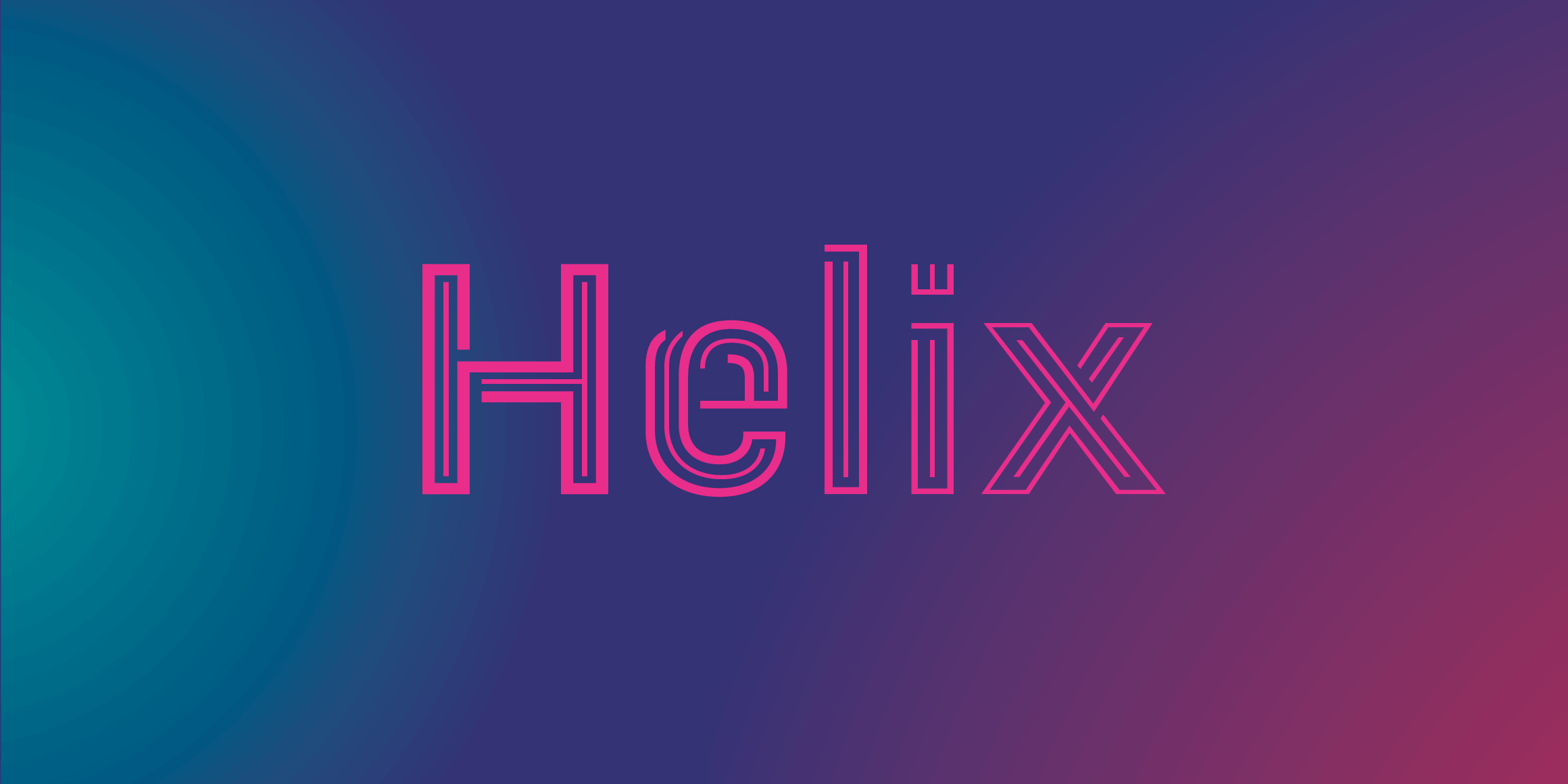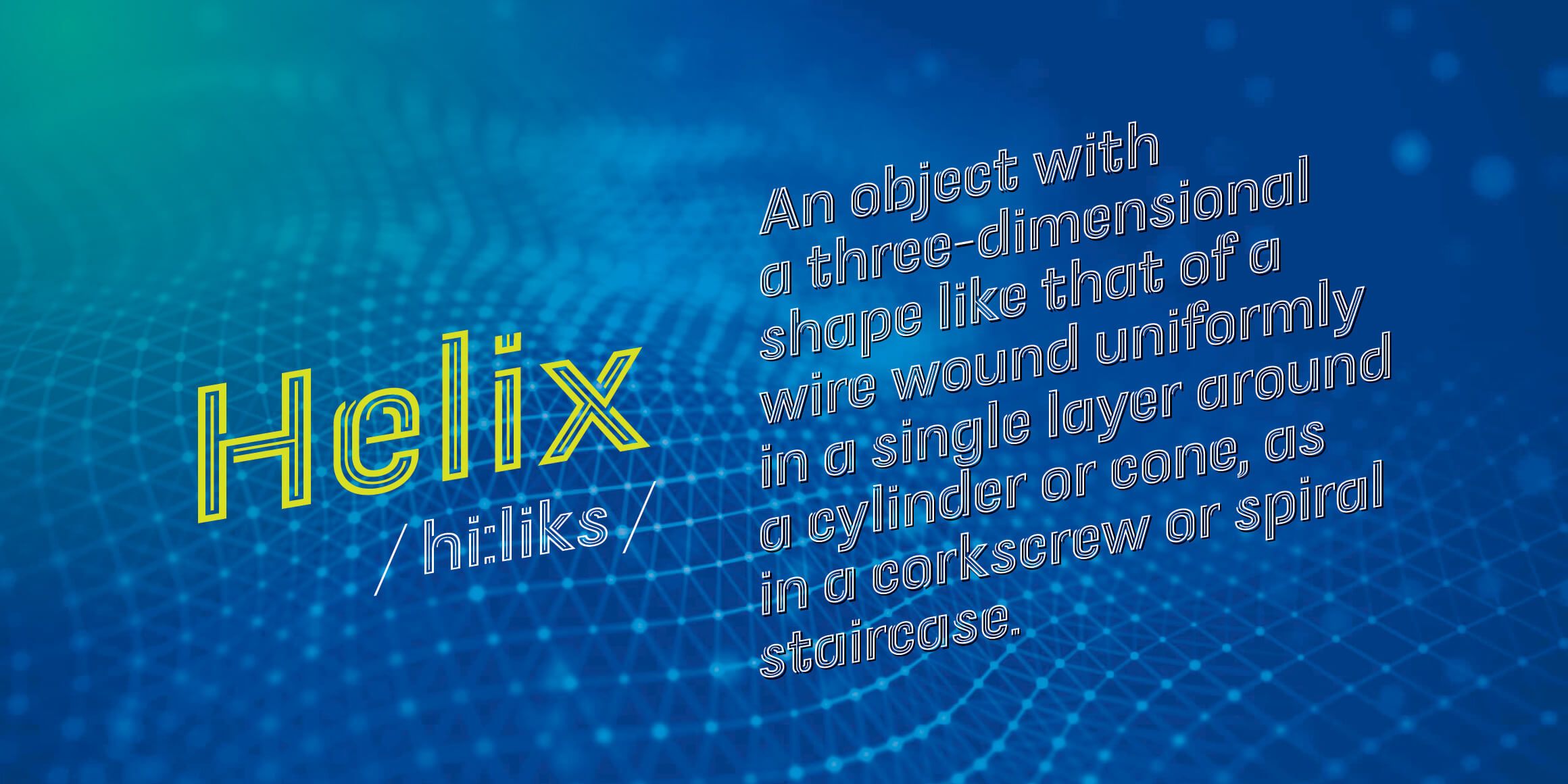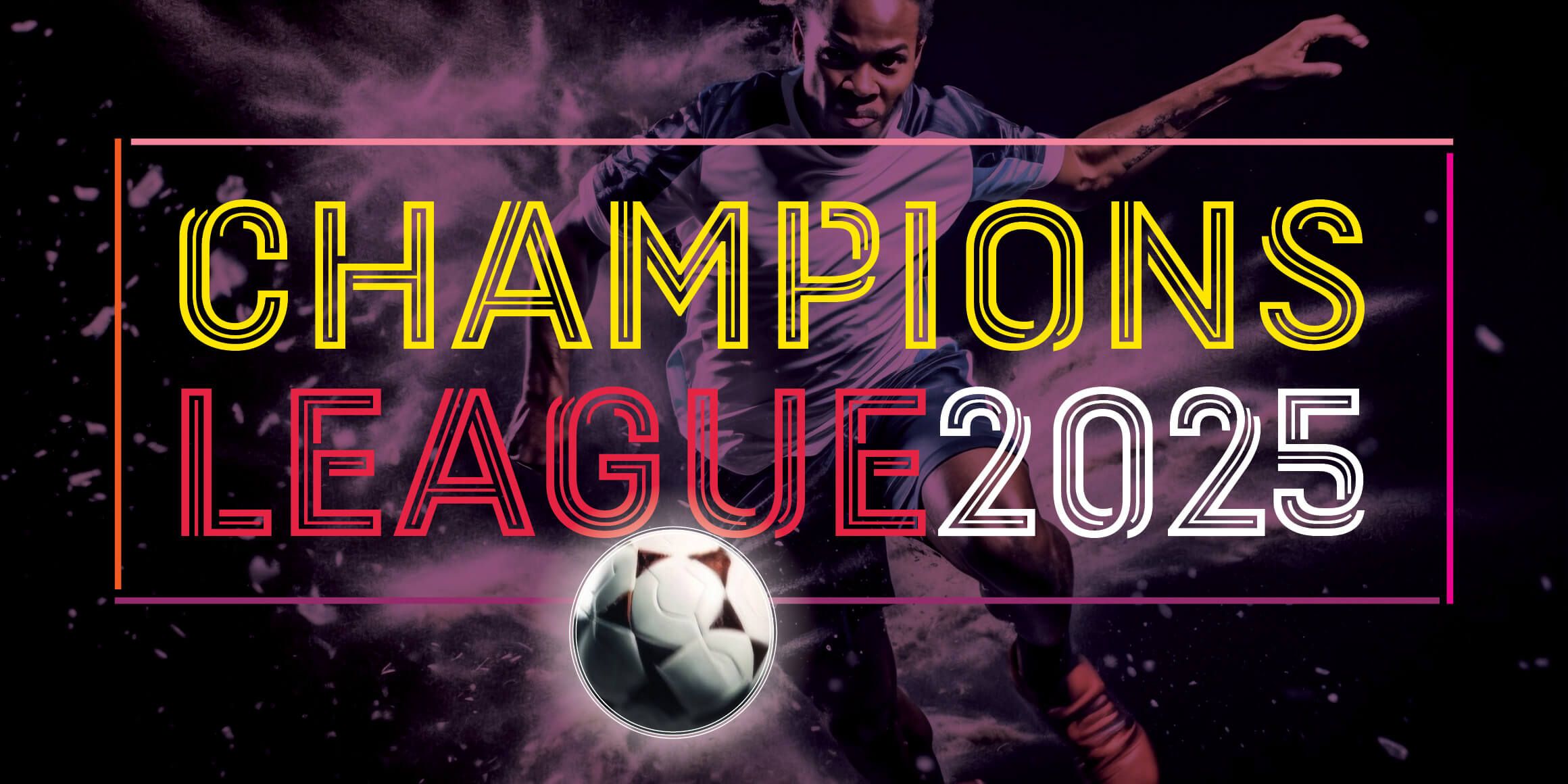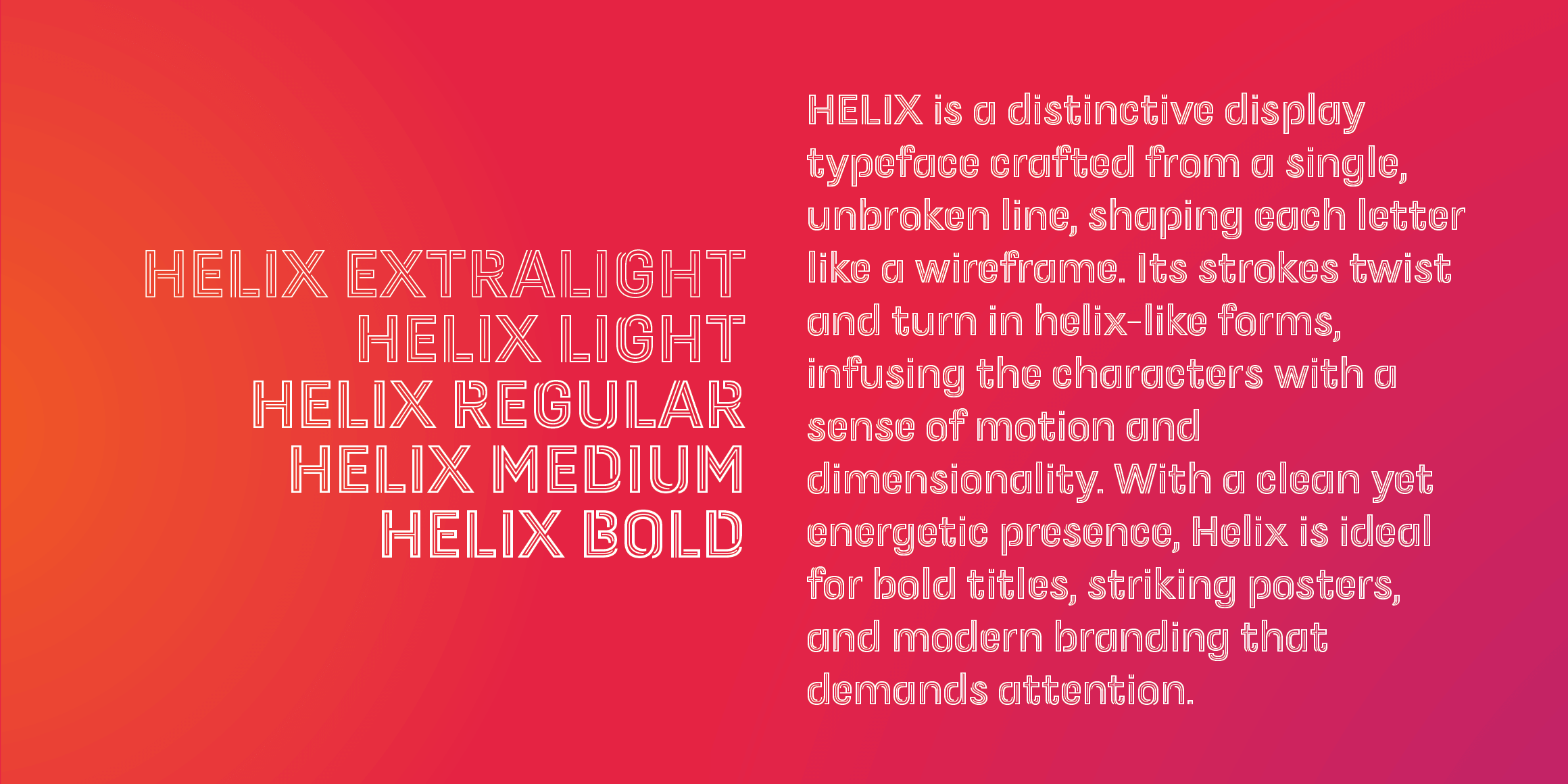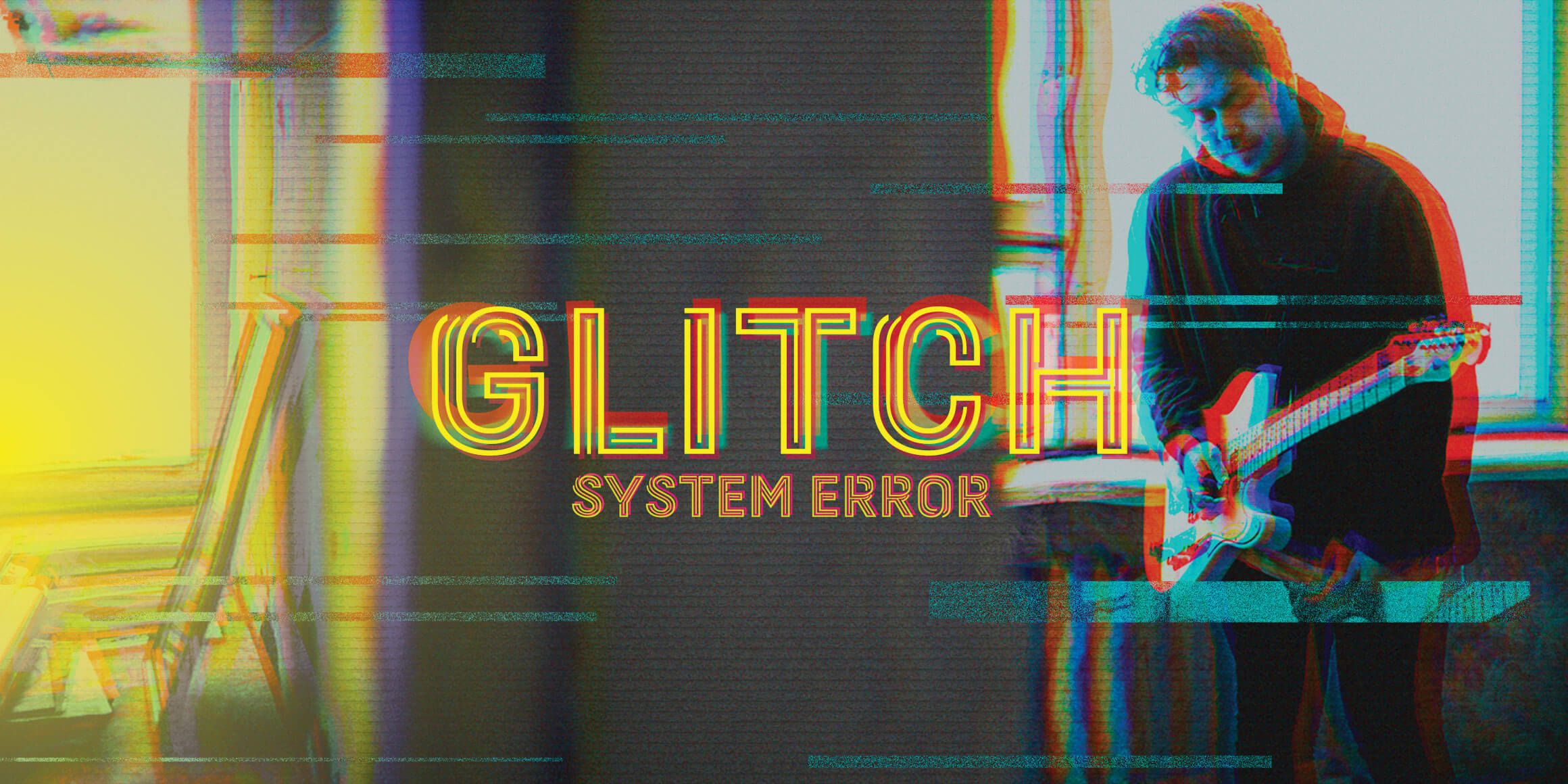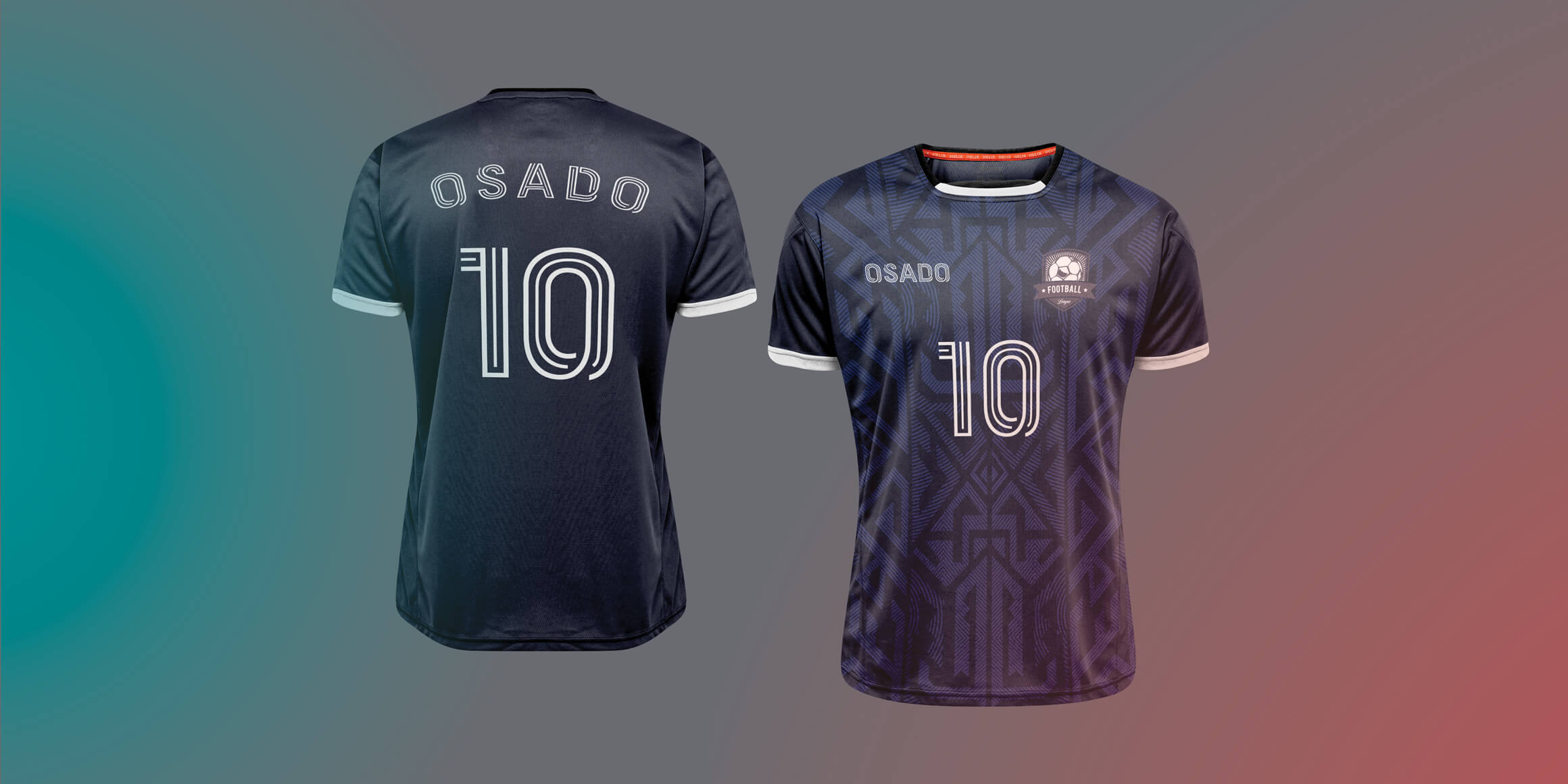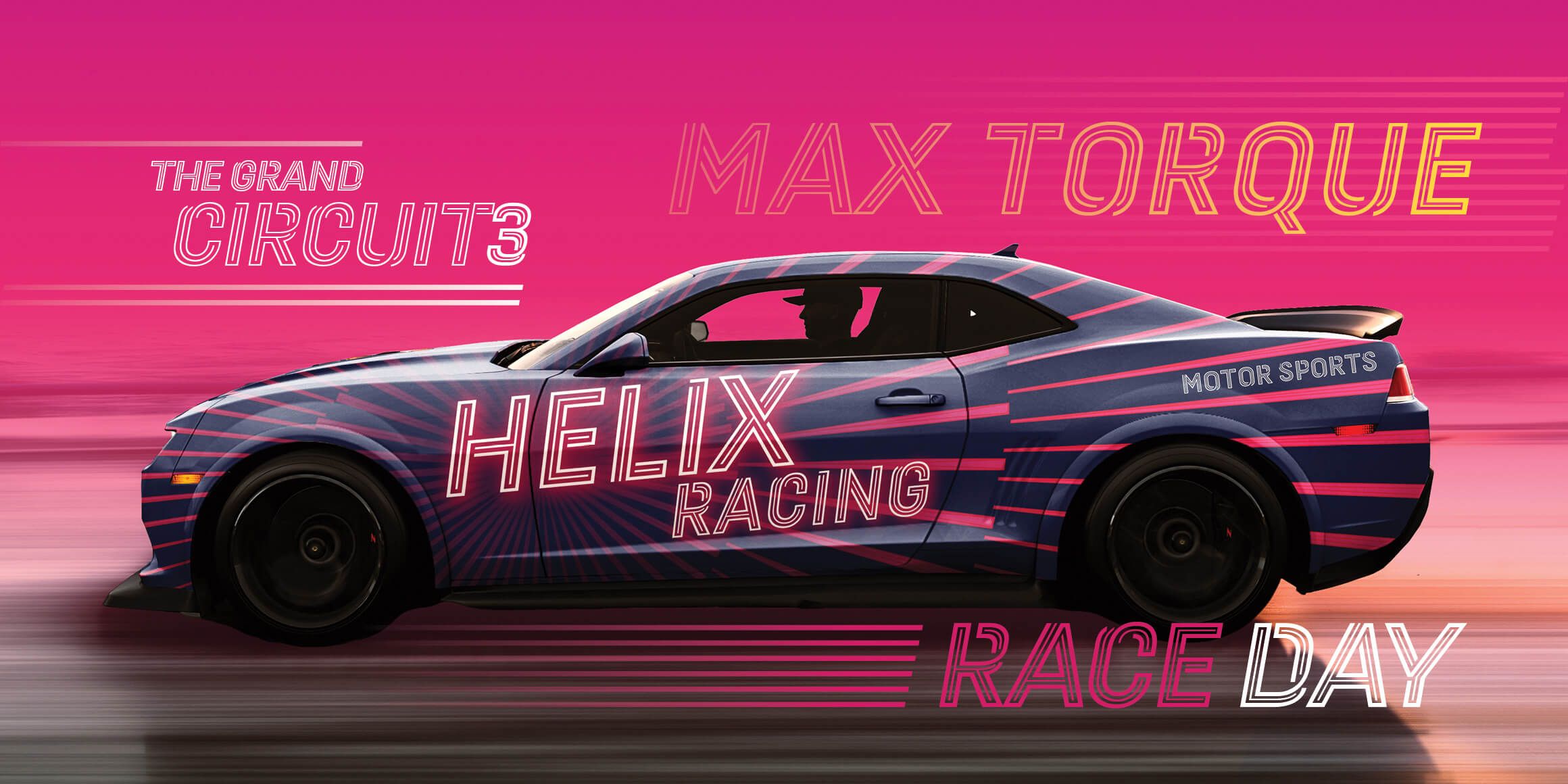
Helix
Helix is a distinctive display typeface crafted from a single, unbroken line, shaping each letter like a wireframe. Its strokes twist and turn in helix-like forms, infusing the characters with a sense of motion and dimensionality. With a clean yet energetic presence, Helix is ideal for bold titles, striking posters, and modern branding that demands attention.